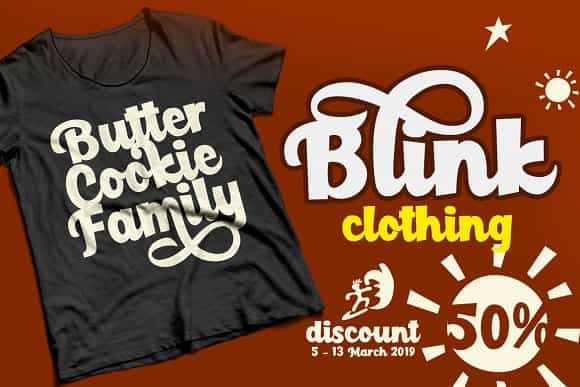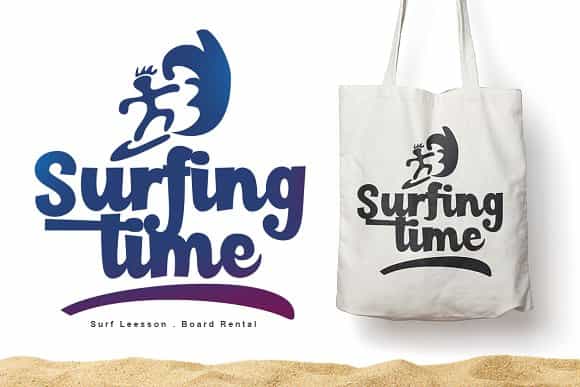
We made a playful font so cool and so beauty, named Paladise Font. for logo, poster, clothing, branding, party invitation, and many many other cool design projects. Paladise comes with a lot of alternate characters and 26 bonus vectors